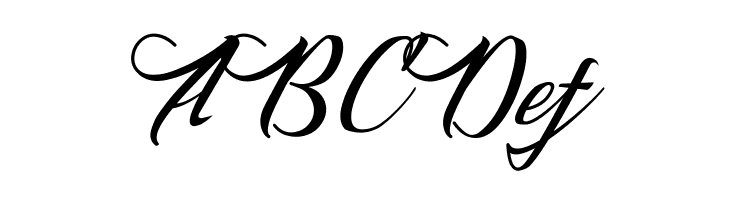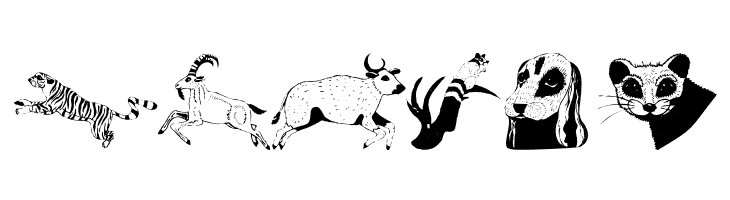
Animal illustrations form each letter and symbol in a decorative, playful style.
A flowing, cursive script font with elegant, sweeping strokes and ornate flourishes.
A flowing, elegant cursive font with interconnected strokes and a handwritten appearance.